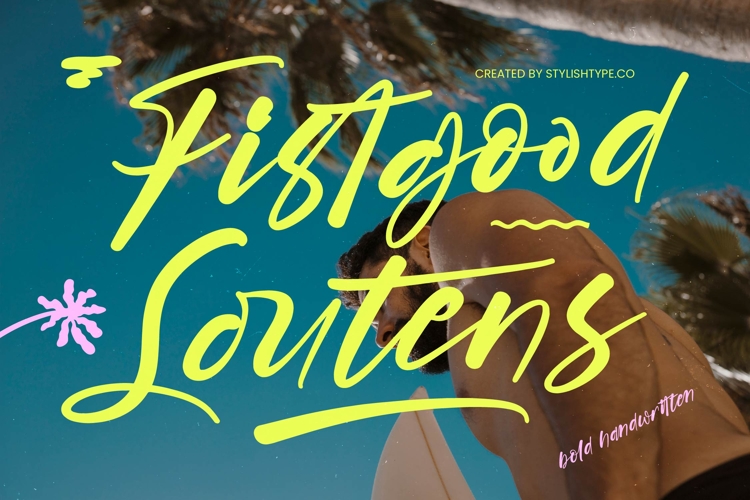
Fistgood Loutens - Bold Handwritten
Fistgood Loudens is a bold and energetic handwritten font designed to make a powerful visual statement. With its dynamic strokes, expressive curves, and confident lettering style, this font captures the spirit of freedom, creativity, and modern lifestyle aesthetics.
Inspired by surf culture, summer vibes, and bold signature lettering, Fistgood Loudens is perfect for eye-catching headlines, branding, posters, apparel designs, social media graphics, packaging, and promotional materials. Its strong handwritten character ensures high readability while delivering a stylish and impactful look.
Whether you're creating designs for fashion brands, beach events, music promotions, or lifestyle products, this font adds a vibrant and contemporary touch that stands out across both print and digital media.